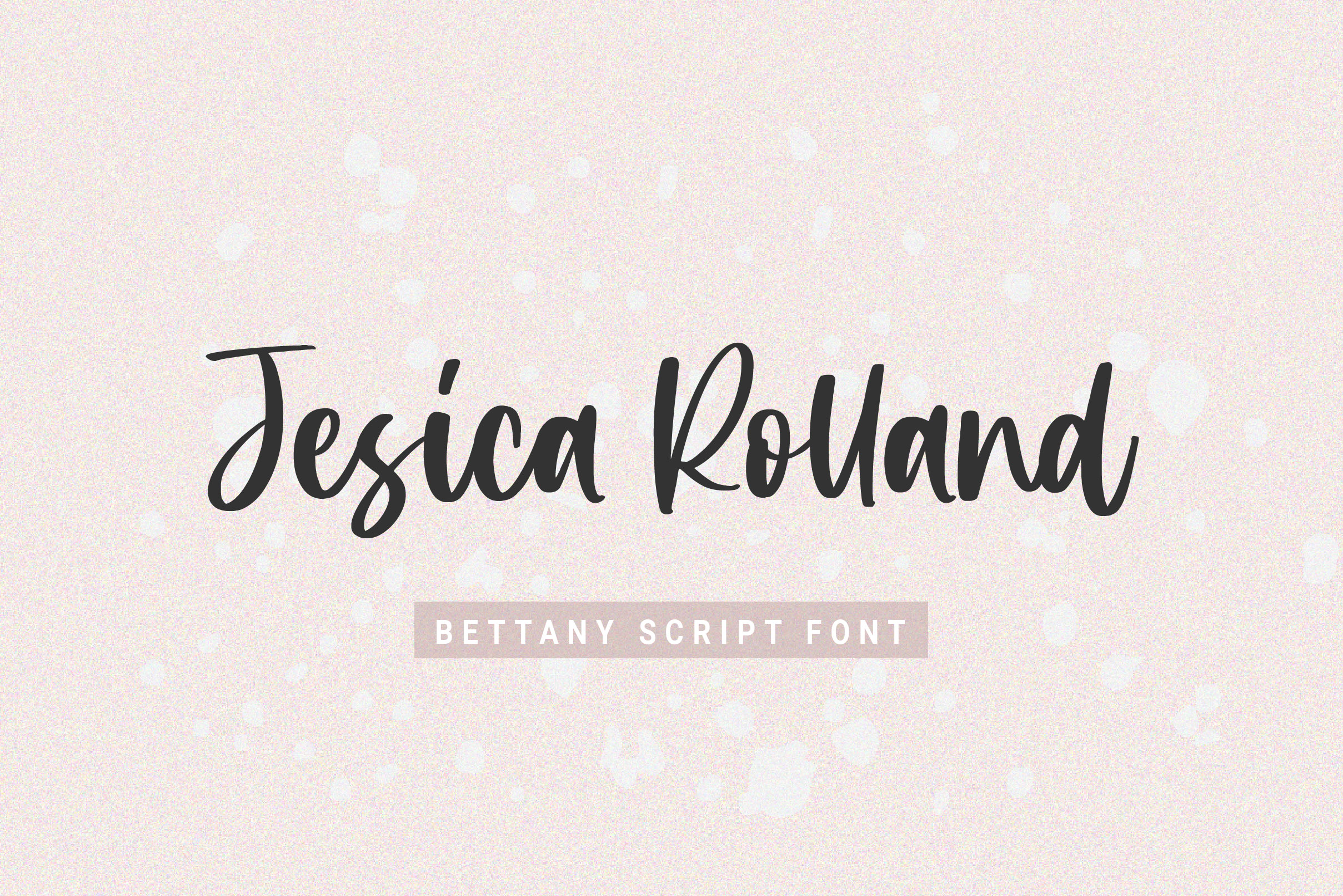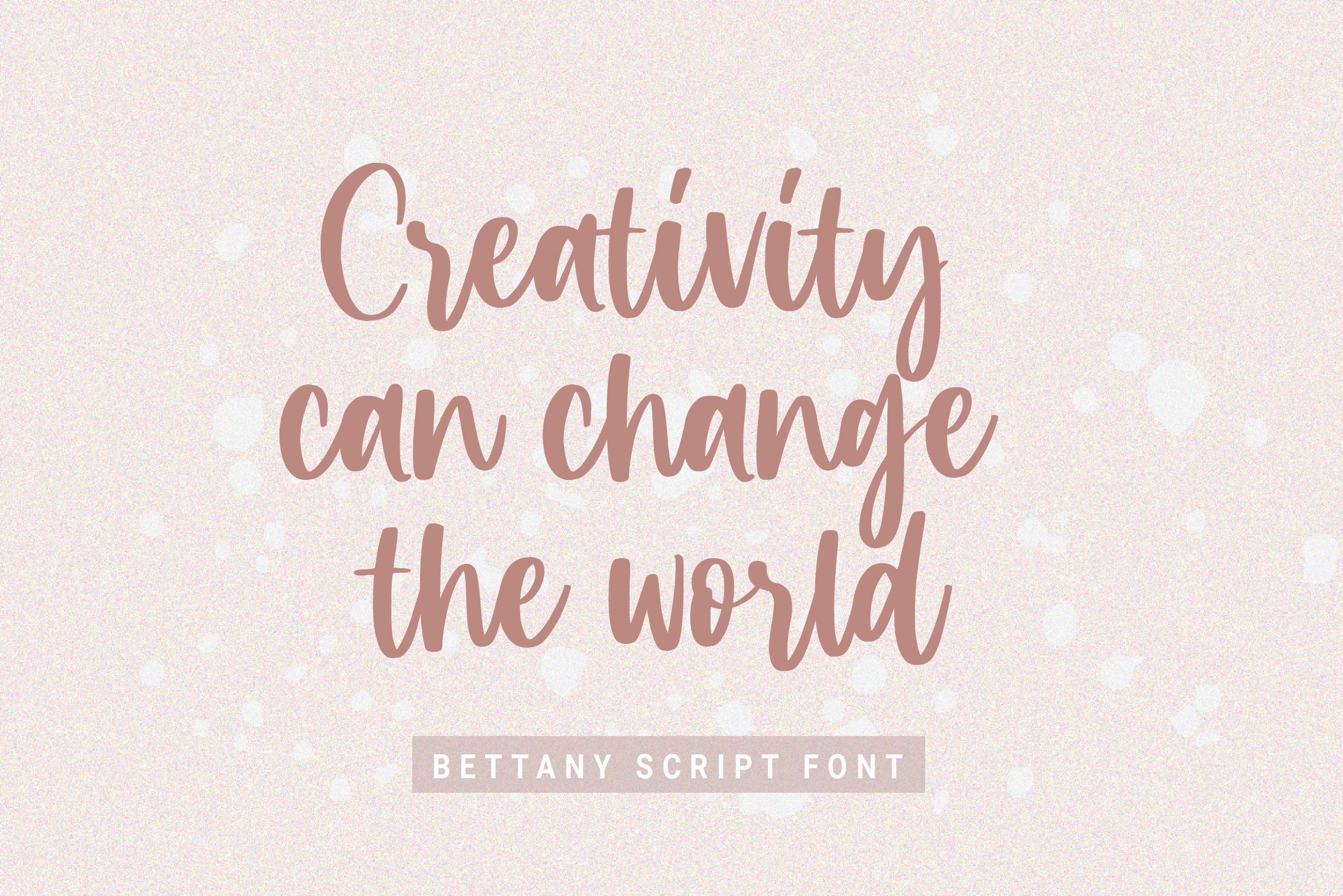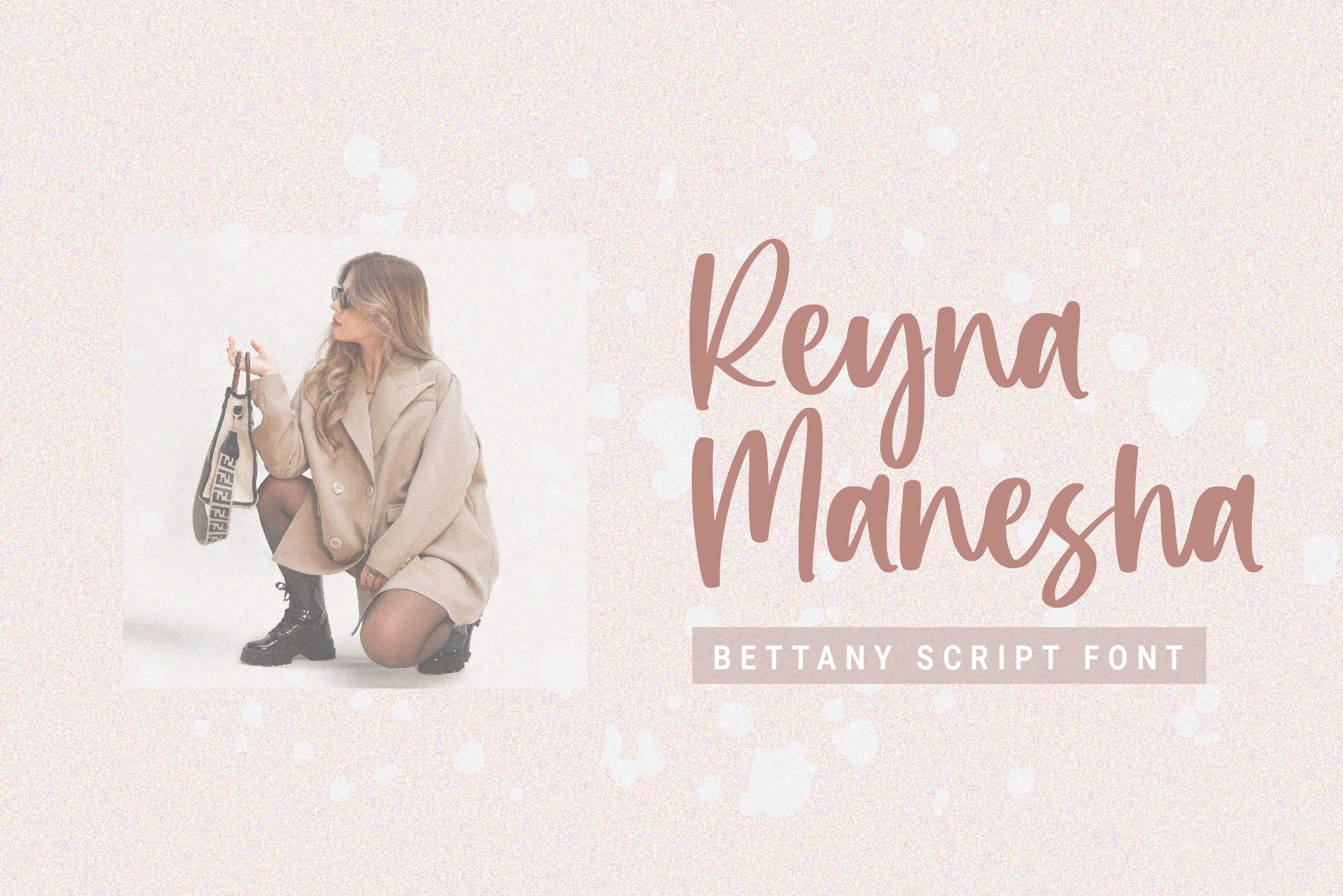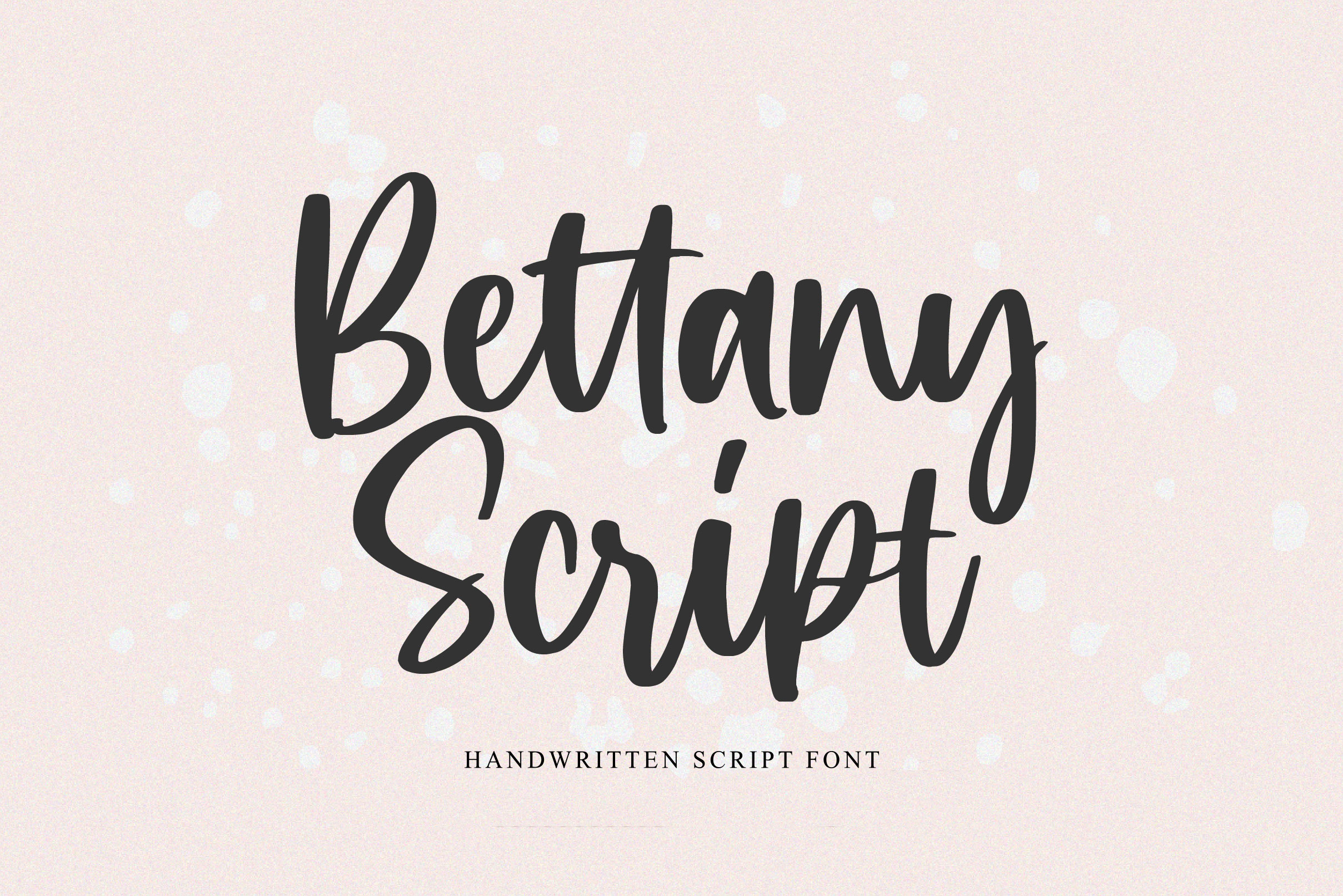
Bettany Script Font
Bettany Script Font is a sweet and romantic handwritten script font. Whether you’re using it for crafts, digital design, presentations, or making greeting cards, this font has the potential to become your favorite go-to font, no matter the occasion.
– Uppercase, Lowercase, Numeral & Punctuation
– Alternate Letters, Ligature & Swash/Tail